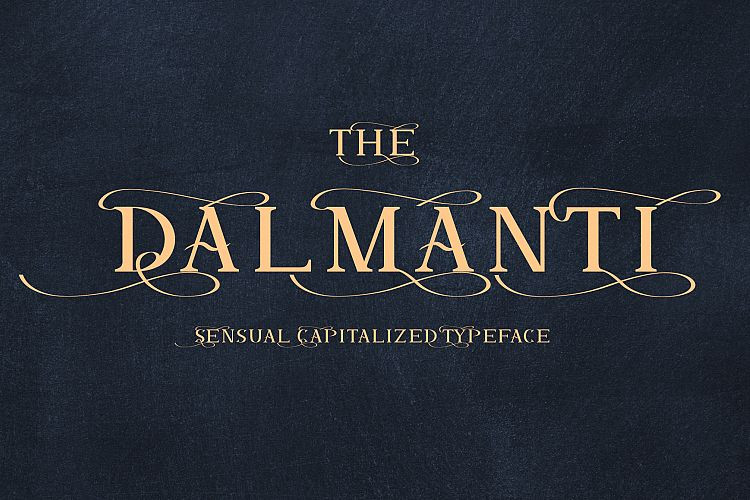
Dalmanti Typeface
Say Hello Guy’s . Thank you for looking Dalmanti Font. A modern serif with a geometric touch and semi-circular corners. Dalmanti Typeface is an sensual capitalized typeface that offers a wide range of possibilities, especially for a lot of alternative. Dalmanti Font offers an attractive tool for producing elegant decorative lettering, for example, for book covers or for posters and packaging.